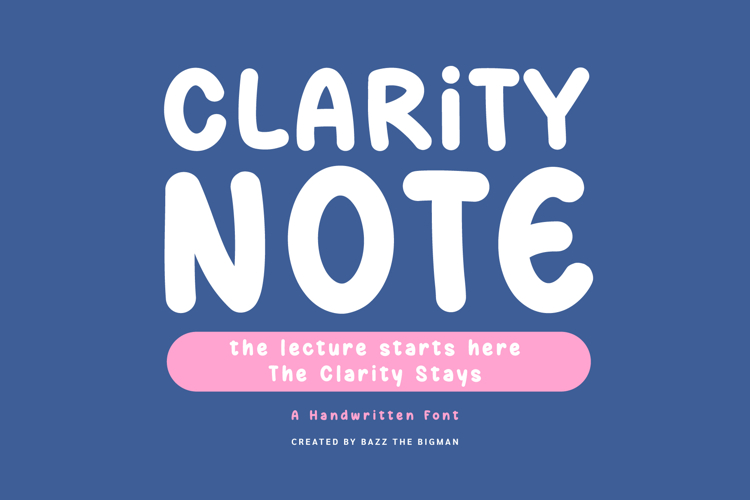
Presenting Clarity Note, a charming handwritten font that artfully weaves warmth and lucidity into your designs. Its carefully curated round edges embody the casual charm of handwritten notes, making it an ideal choice for scholarly notes, meticulously planned schedules, uplifting quotes, seasonal greeting cards, and inviting branding. Infused with an endearing touch from its deliberate imperfections, Clarity Note stands out with comprehensive glyphs and multilingual support.